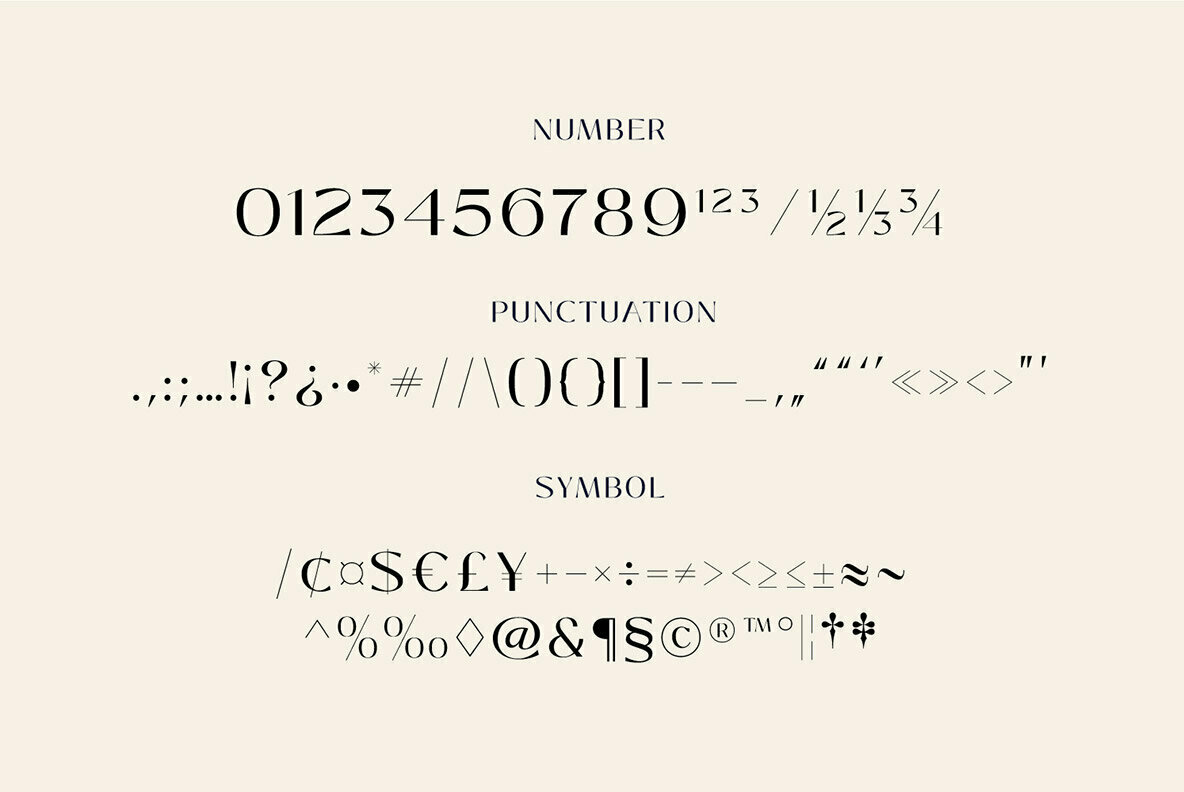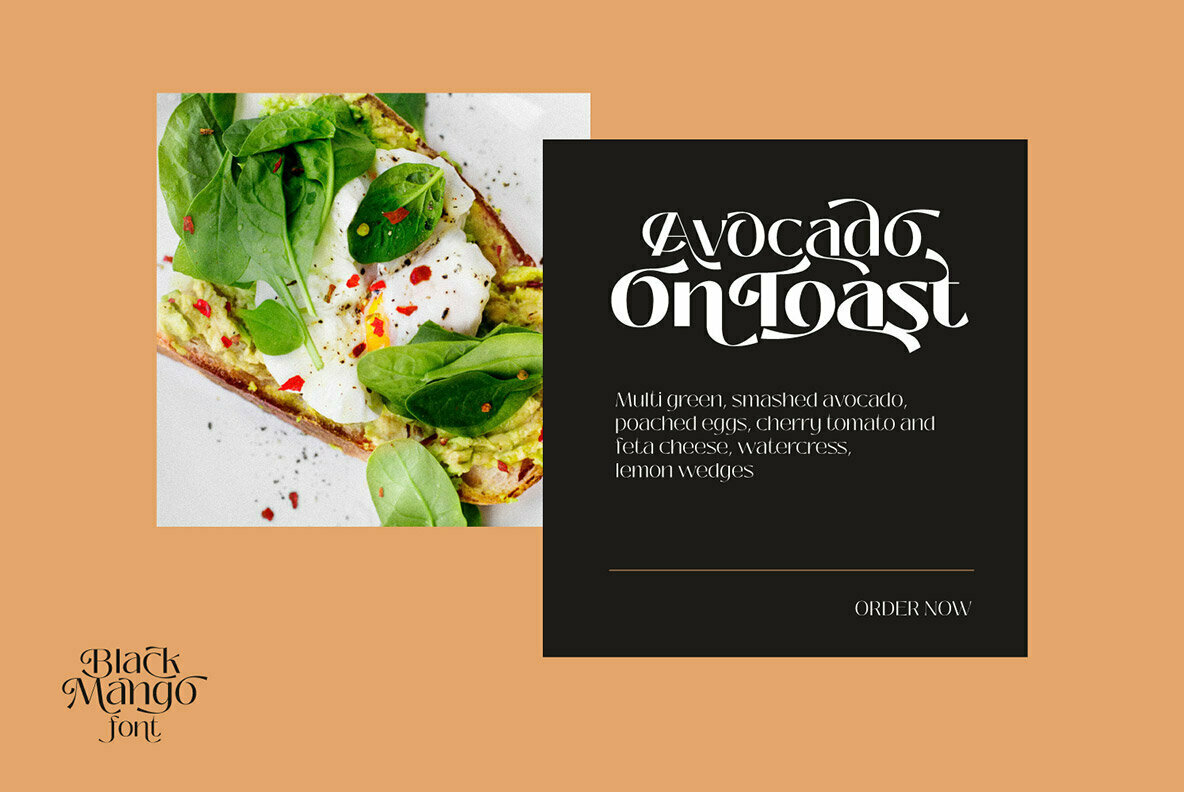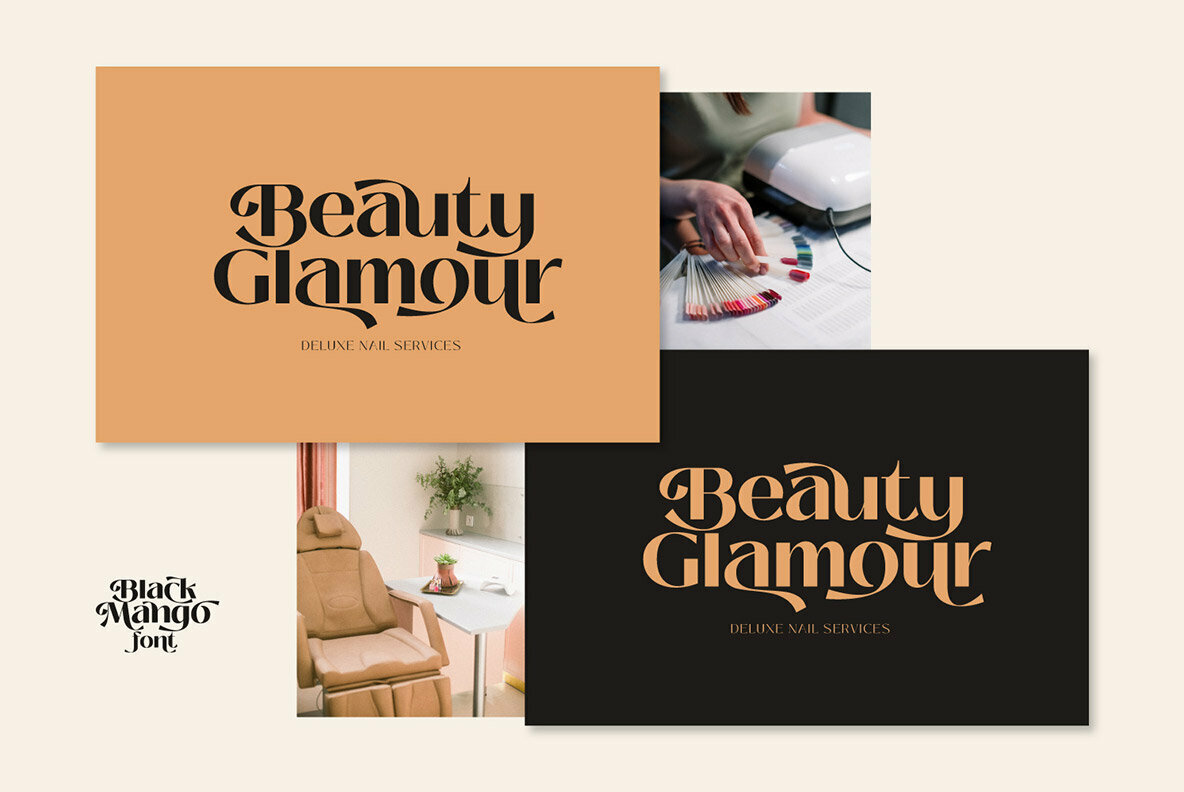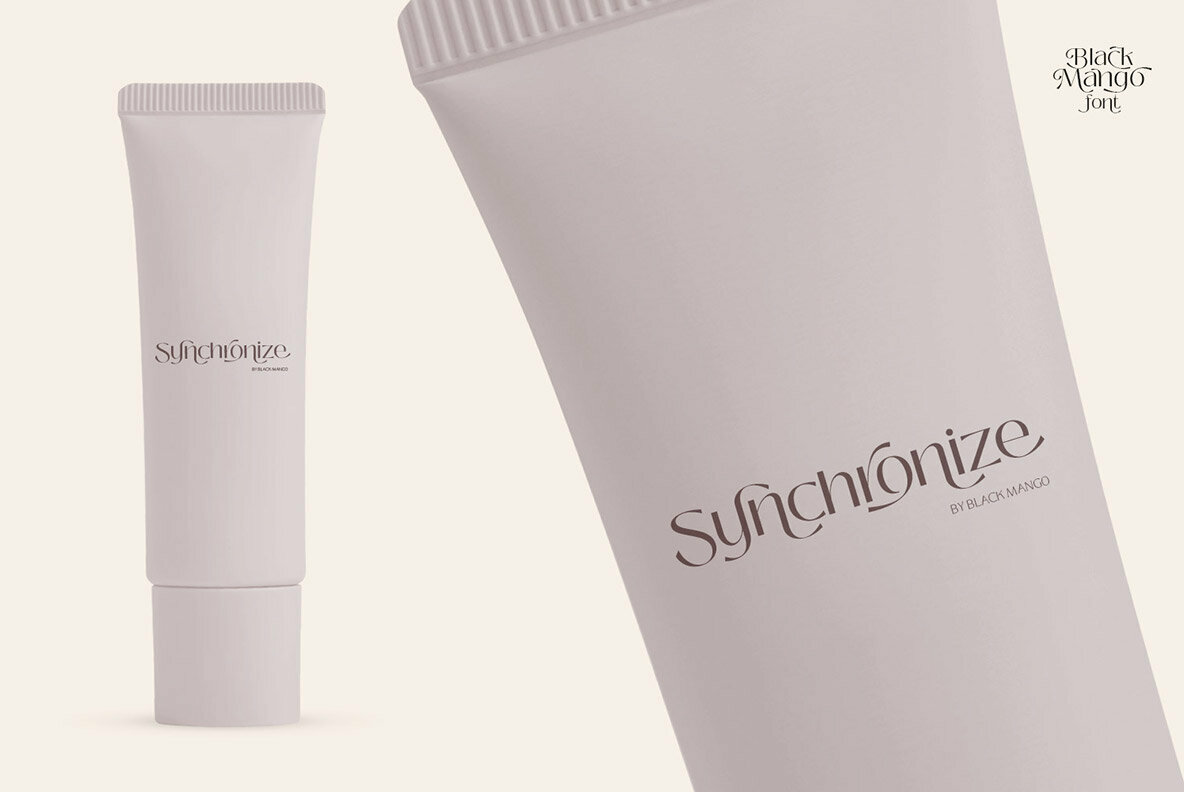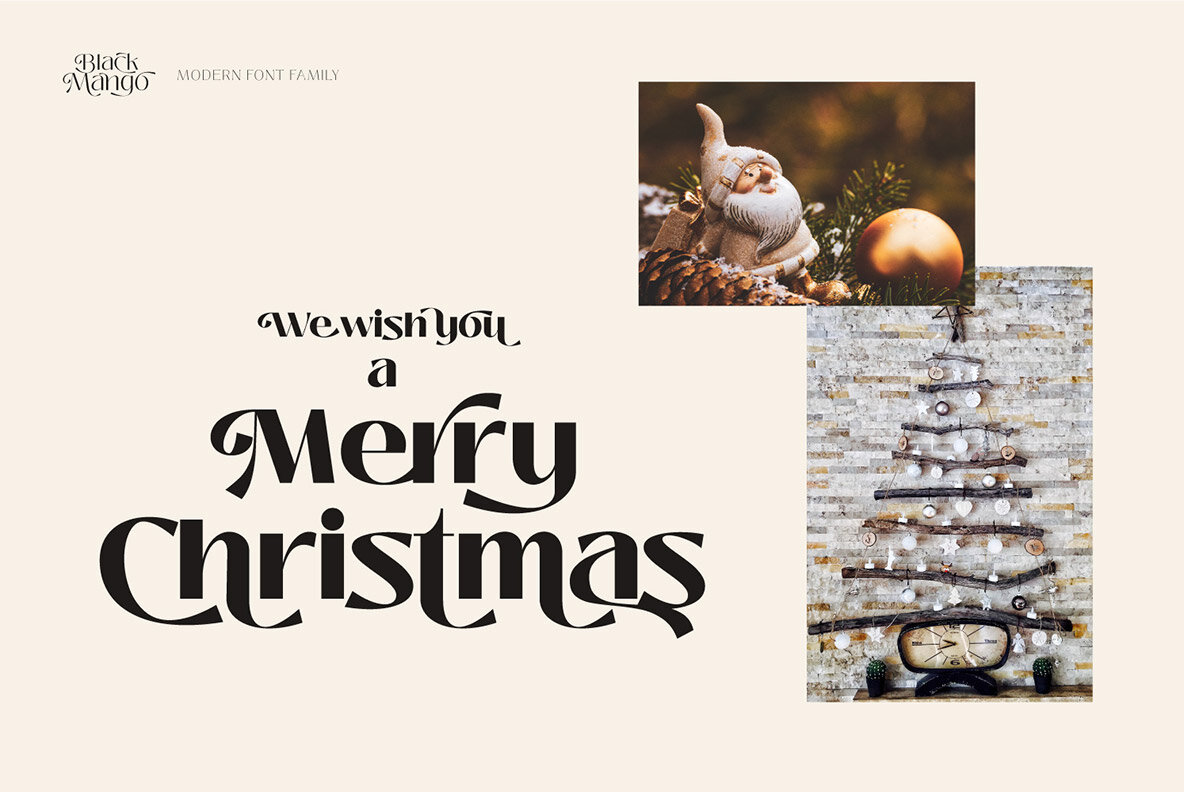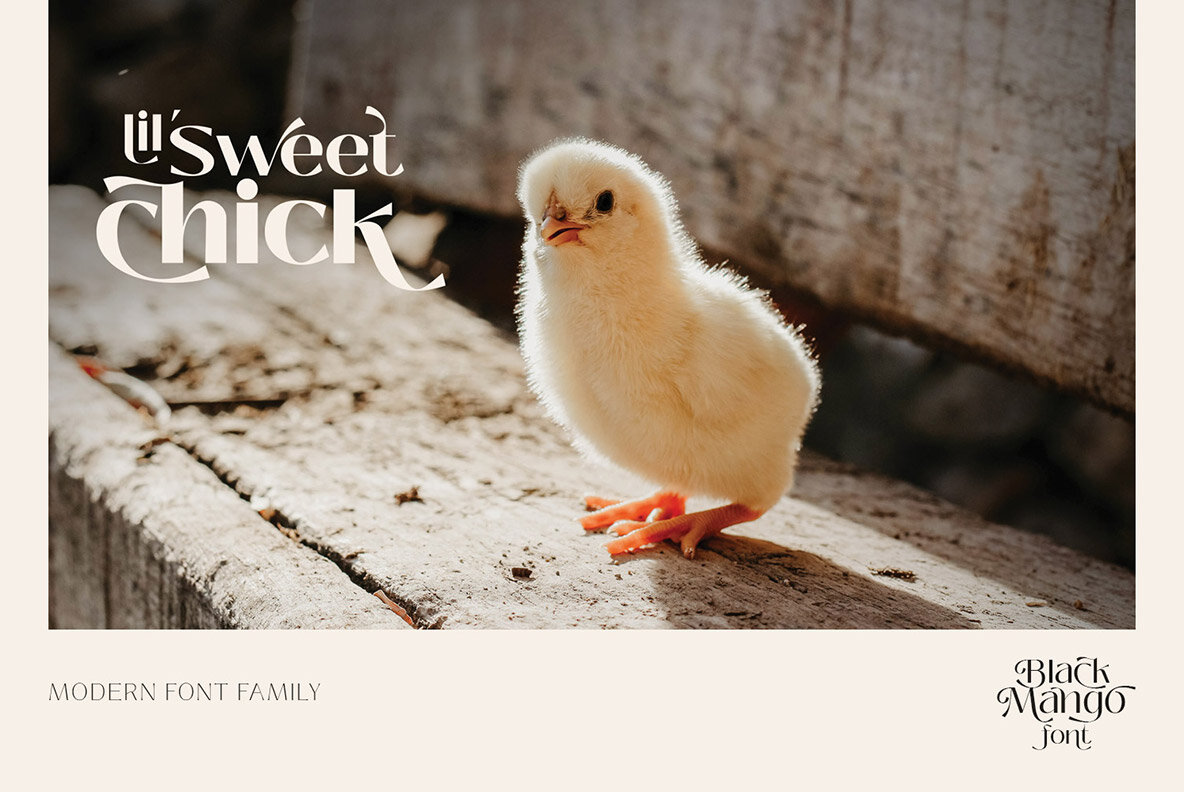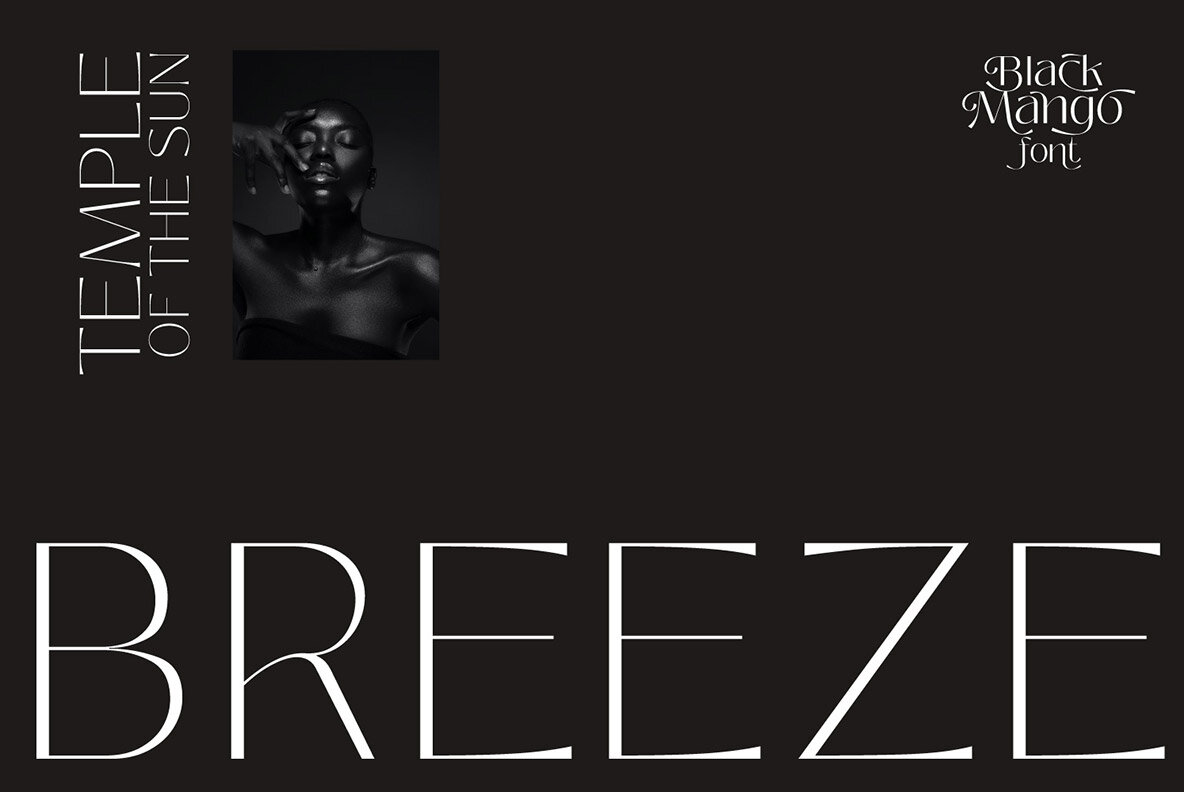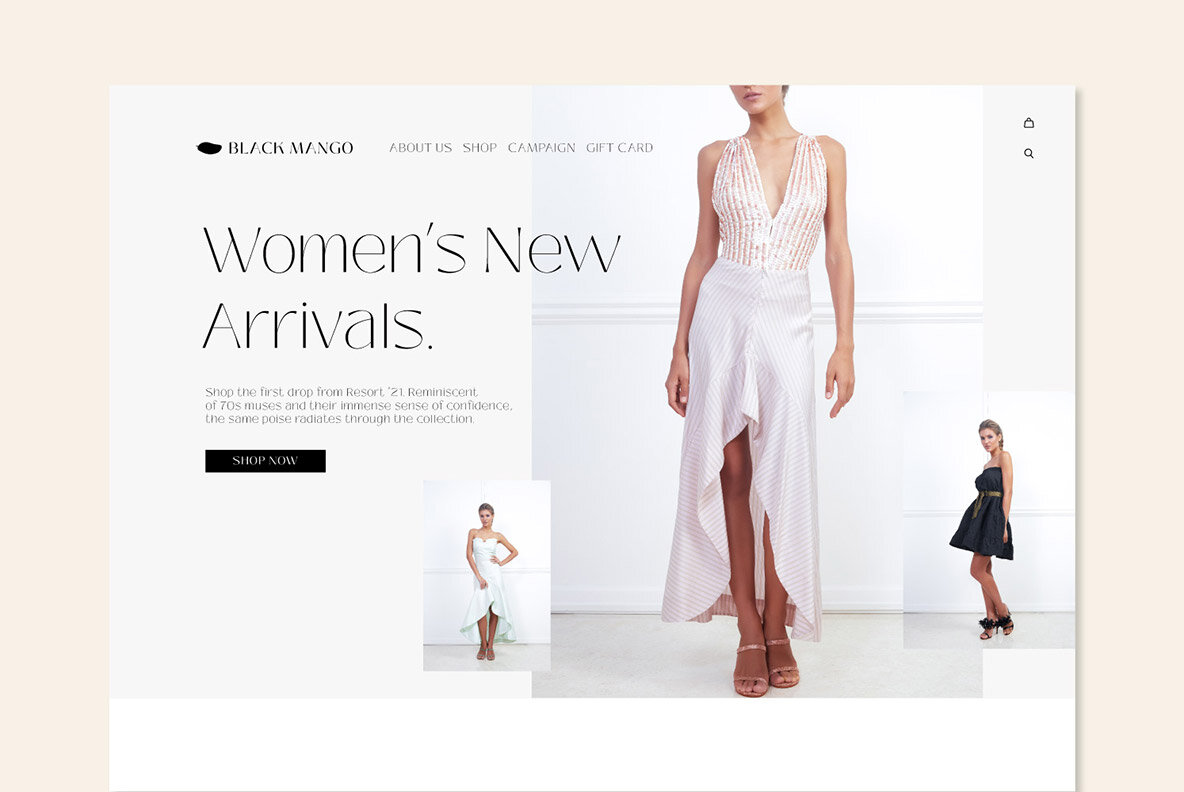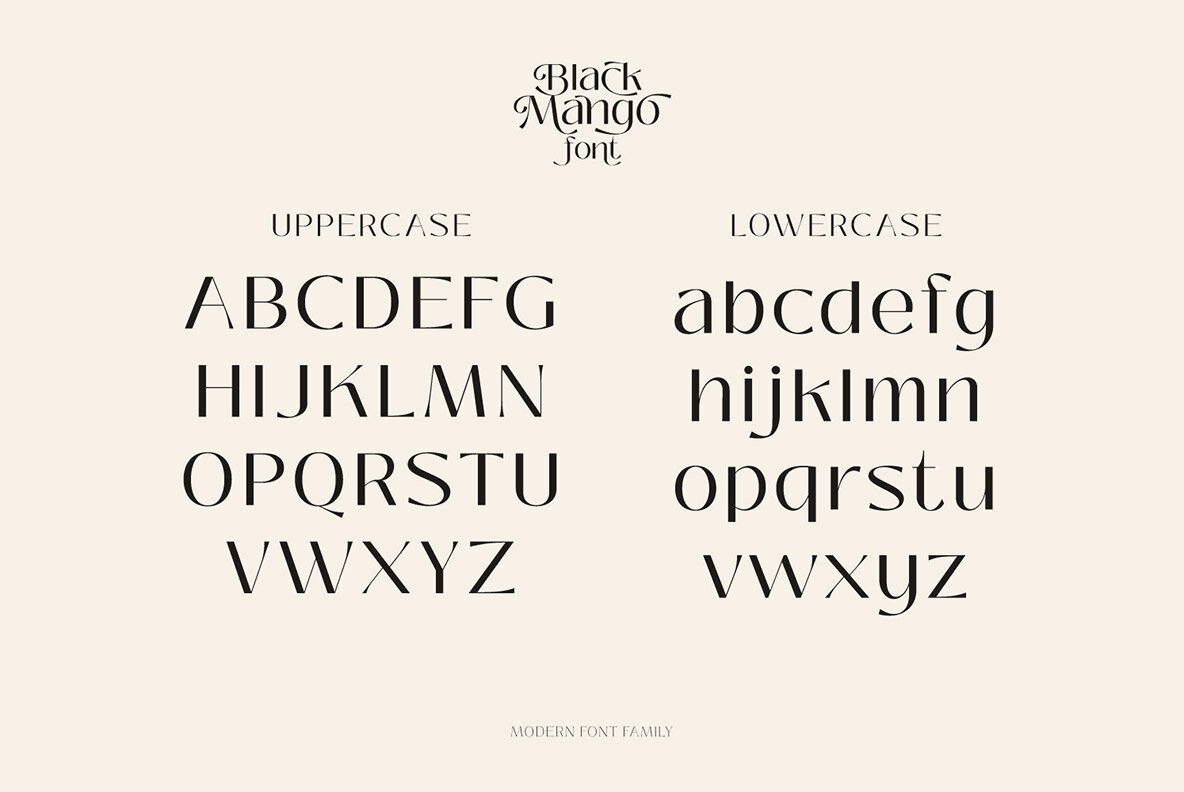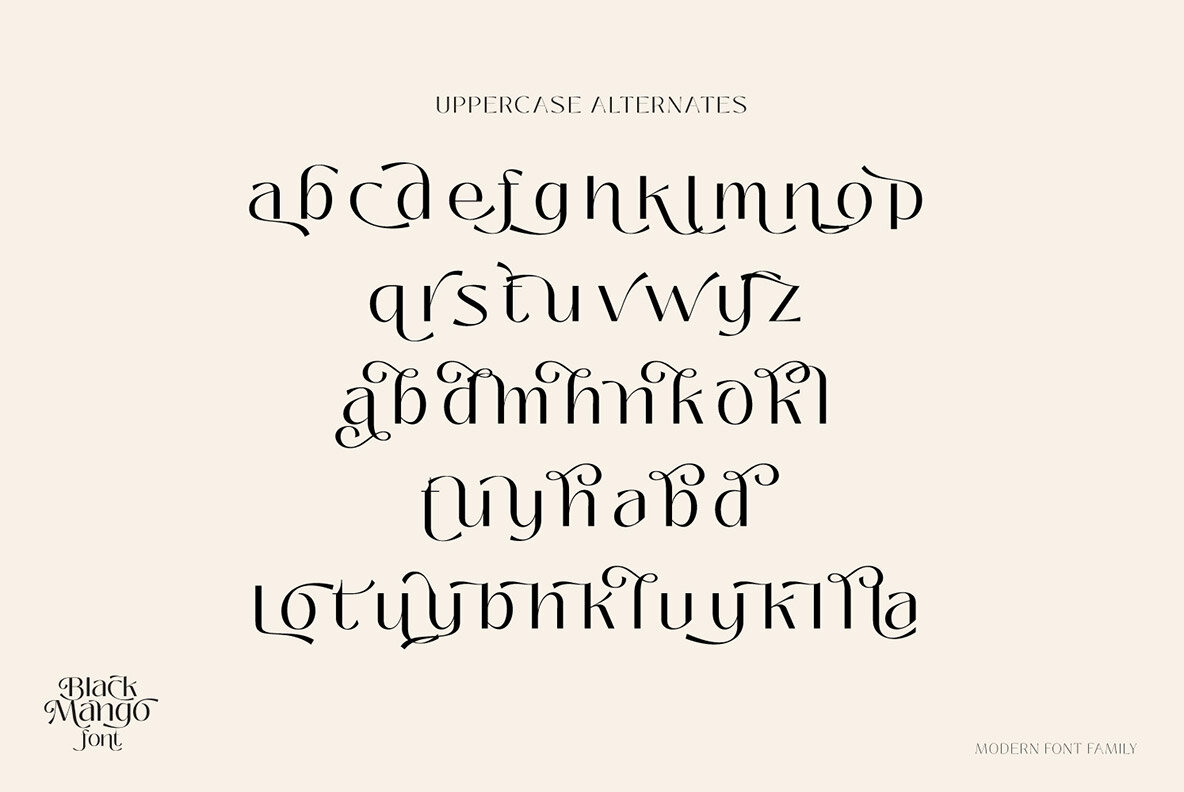
Black Mango Family
Modern simple family consists of 9 weights and has dozens of alternates to combined with. this versatile family is best for branding, webdesign project, logo and much more. comes with variable format as well as multilingual support, numbers, and currency symbols